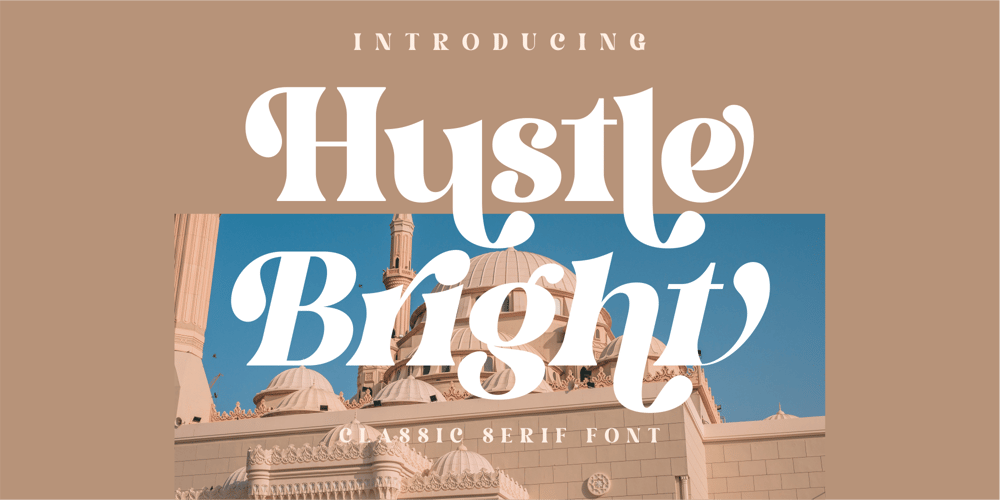
Hustle Bright Font Family was designed by Heru Utama Putra and published by Letterena Studios. Hustle Bright contains 2 styles and family package options. If you’re looking for a gorgeous font to attract your audiences or customers then we’ve got the font for you!Hustle Bright – A Serif FontThis handmade font typeface with modern style looks very interesting for loads of different projects and promotions. It is perfect to be used on your website, for your social media branding, Pinterest banners, printed products, and more!Features:Multilingual SupportPUA EncodedNumerals and PunctuationThank you for downloading premium fonts from Letterena Studios